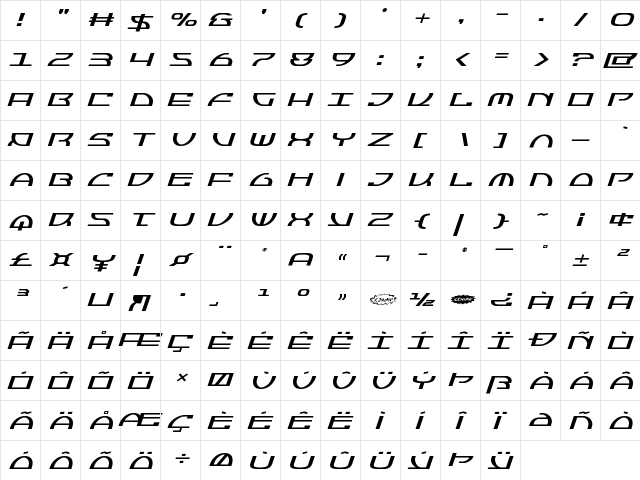
Jumptroops Expanded Italic Expanded Italic
Design Context for Jumptroops Expanded Italic Typeface
Jumptroops Expanded Italic is a composed and adaptable typeface that performs quietly and consistently across a wide range of design contexts. The slanted form adds forward momentum and visual energy.
Pro Tip: Try Jumptroops Expanded Italic for annotation and caption copy alongside an upright companion — the contrast in angle creates a dynamic but ordered typographic system.